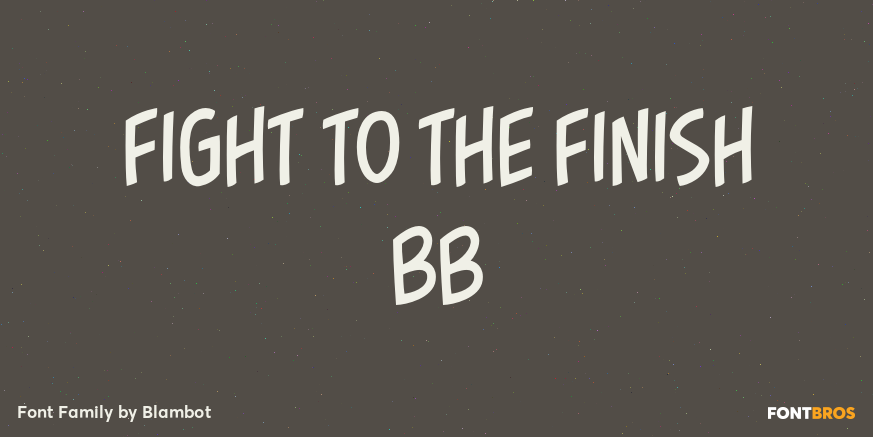
Fight to the Finish BB
About Fight to the Finish BB
Inspired by the Bronze Age of comics, ?Fight to the Finish BB? comes with EIGHT sound effects fonts; four with clean edges, and four with rough edges. Talk about covering all the bases. All have extended European character sets, as always!